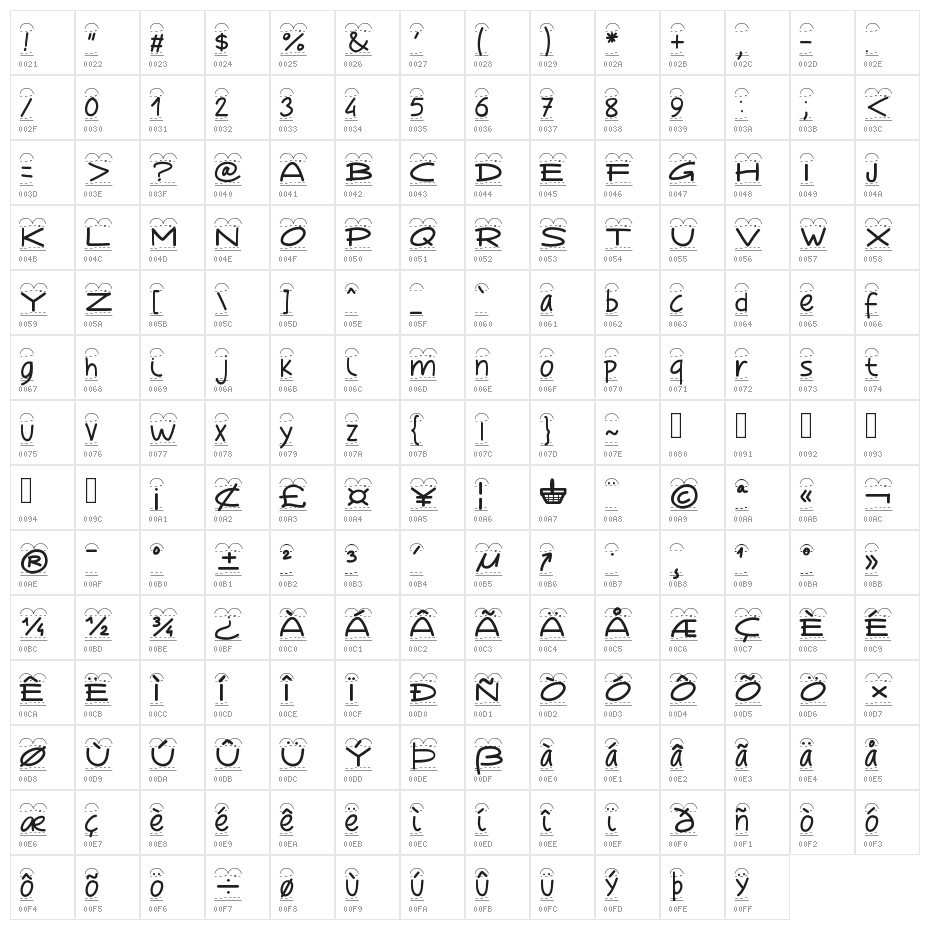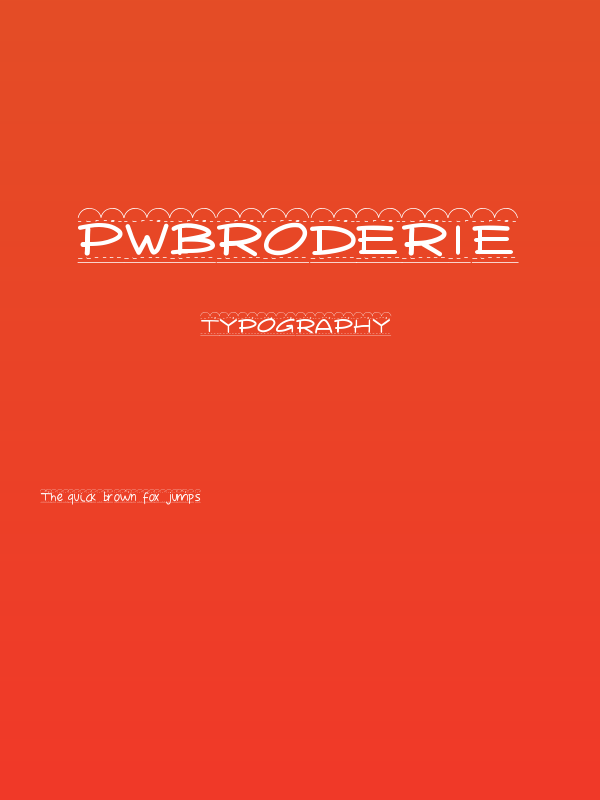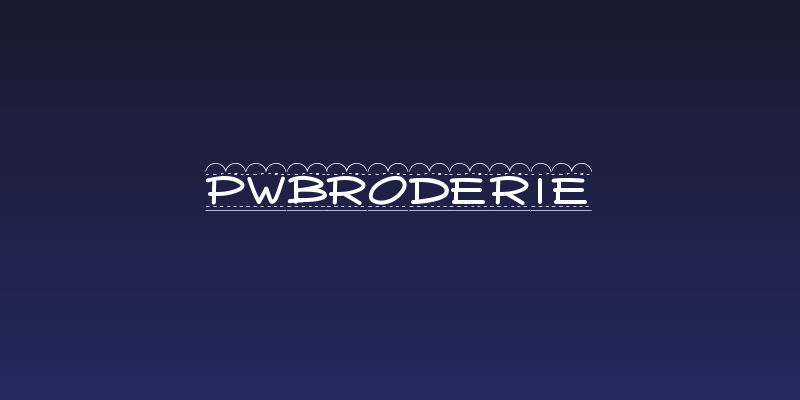
PWBroderie Font
PWBroderie Description
This font features a playful and whimsical style, characterized by its rounded, hand-drawn appearance. The uppercase letters are bold and slightly condensed, with a uniform stroke width that gives them a clean and modern look. The lowercase letters maintain a consistent style, with a slight slant that adds a touch of informality and friendliness. The numerals are clear and easy to read, matching the overall aesthetic of the alphabet. Special characters are included, maintaining the same playful design. This font is perfect for projects that require a fun and approachable feel.
| Use Case | Headlines, Logos, Casual Text |
| Proposed Projects | Ideal for children's books, playful branding, greeting cards, and casual invitations. |